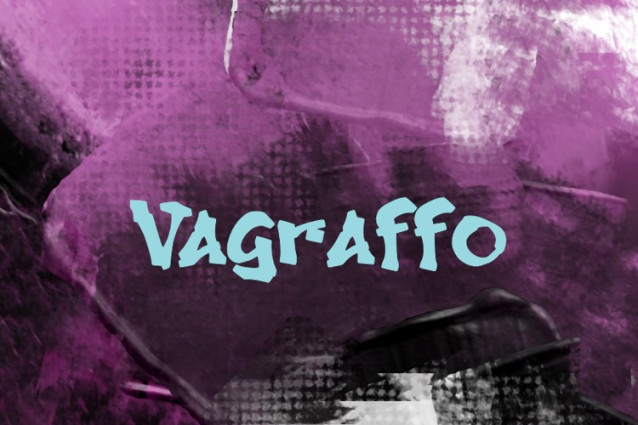
Vagraffo Font
Vagraffo Font, suitable for any design needs : logo, branding, modern advertising design, logos, poster quote, book / cover Title, editorial design, website / blog, card, t-shirts, and any hand-lettered needs.